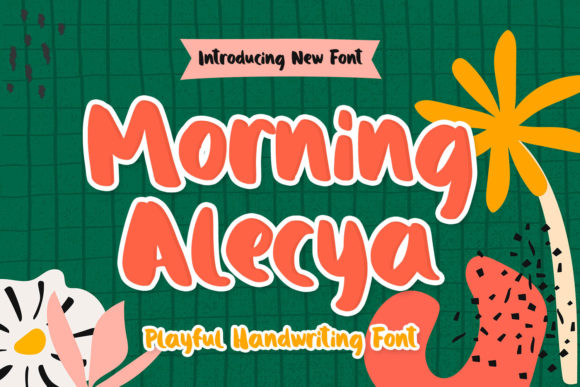
Morning Alecya Font
Calling all card game enthusiasts and designers seeking a touch of whimsy! Introducing Morning Alecya, the display font that captures the spirit of playful competition and charming encounters.
Crafted with a playful touch, Morning Alecya dances across your designs, injecting a burst of cuteness and character. Its whimsical curves and playful strokes evoke a sense of lightheartedness and enchantment, making it the perfect choice for card games, invitations, and playful creations.
More than just a font, Morning Alecya is a design companion that sparks creativity and adds a dash of magic to your projects. Embrace its quirky charm and watch as your designs come alive with a touch of enchantment.